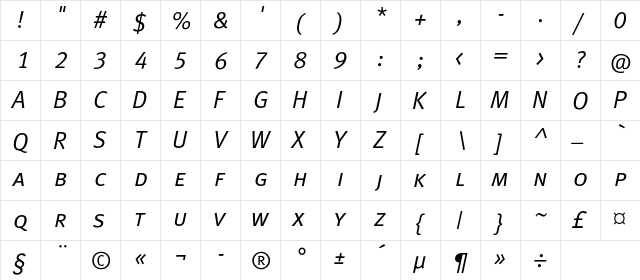
MetaNormalCapsLFC Italic Font Preview
MetaNormalCapsLFC Italic
MetaNormalCapsLFC Italic Font Details
Design Context for MetaNormalCapsLFC Typeface
MetaNormalCapsLFC takes a measured approach to typography — its balanced proportions and neutral character make it a reliable workhorse for both digital and print work. The dynamic lean of this cut emphasises speed and emphasis in any layout.
Pro Tip: Try MetaNormalCapsLFC for annotation and caption copy alongside an upright companion — the contrast in angle creates a dynamic but ordered typographic system.